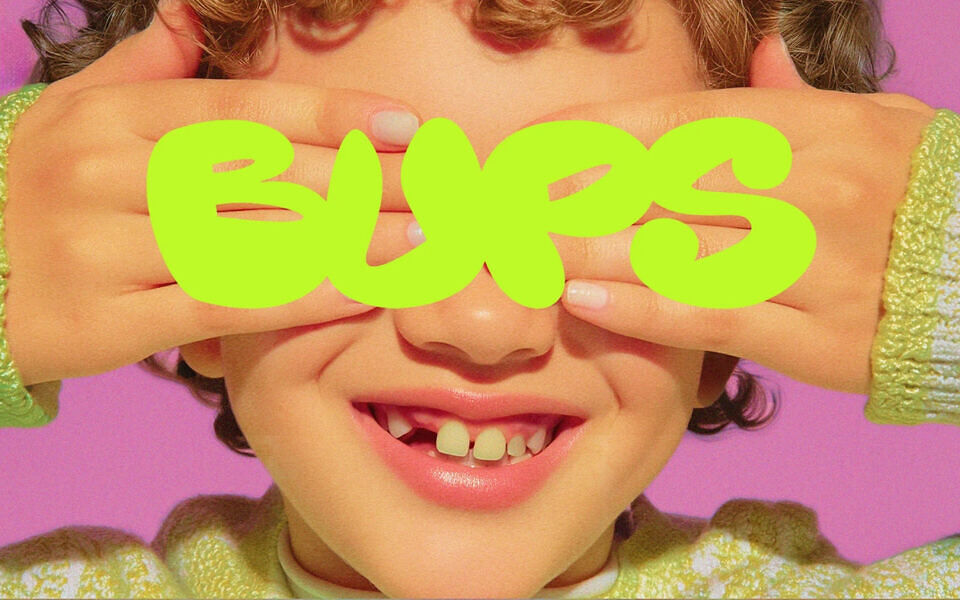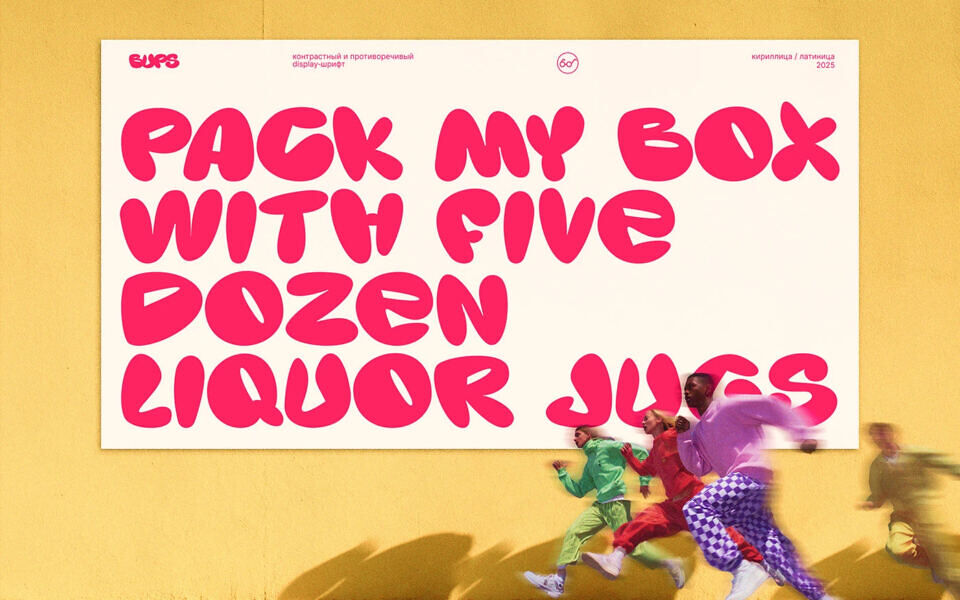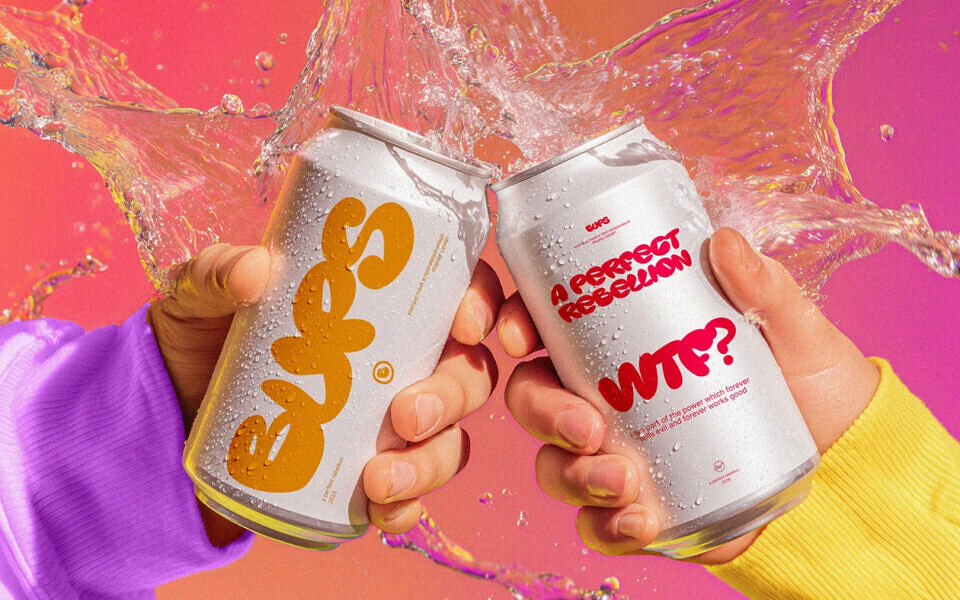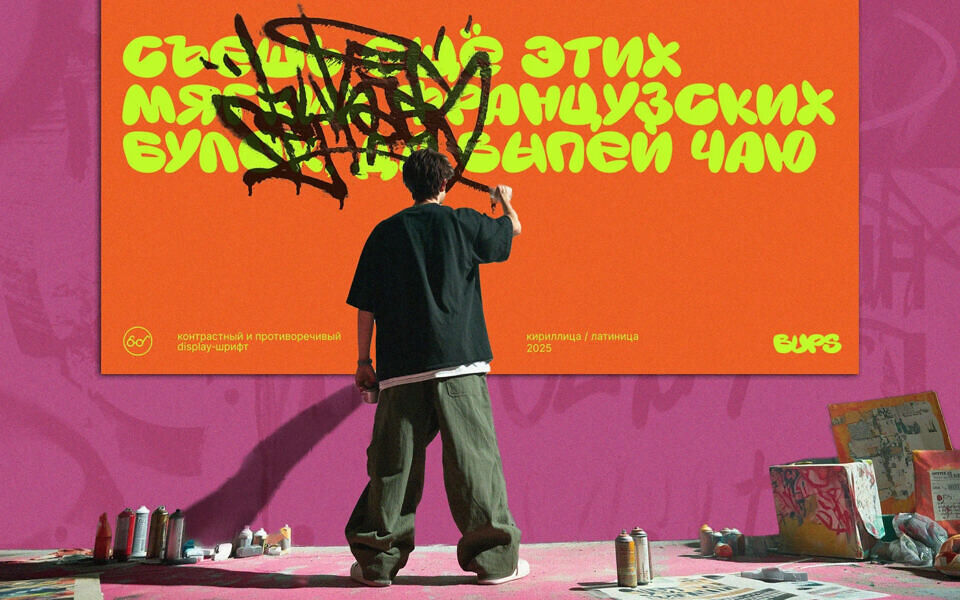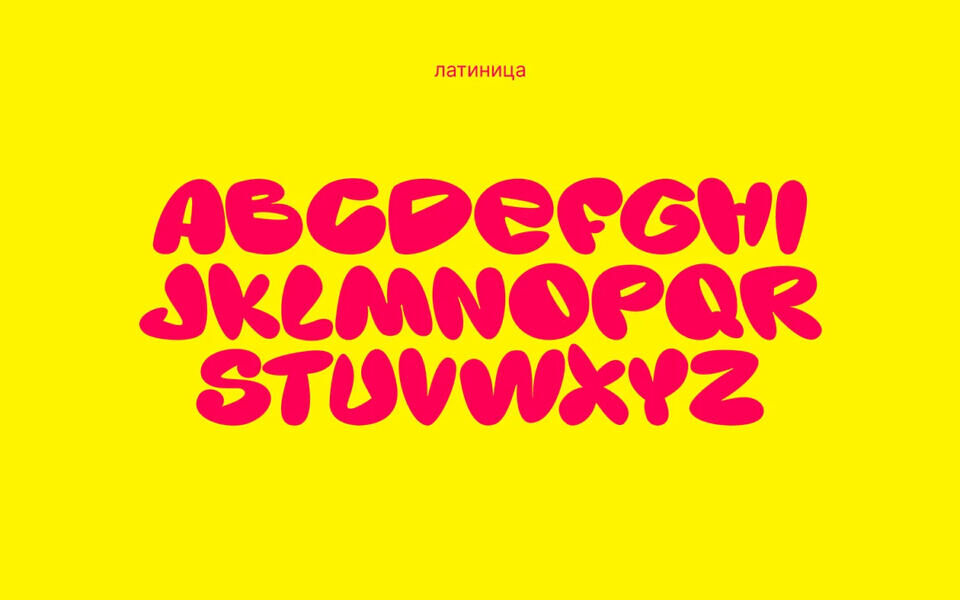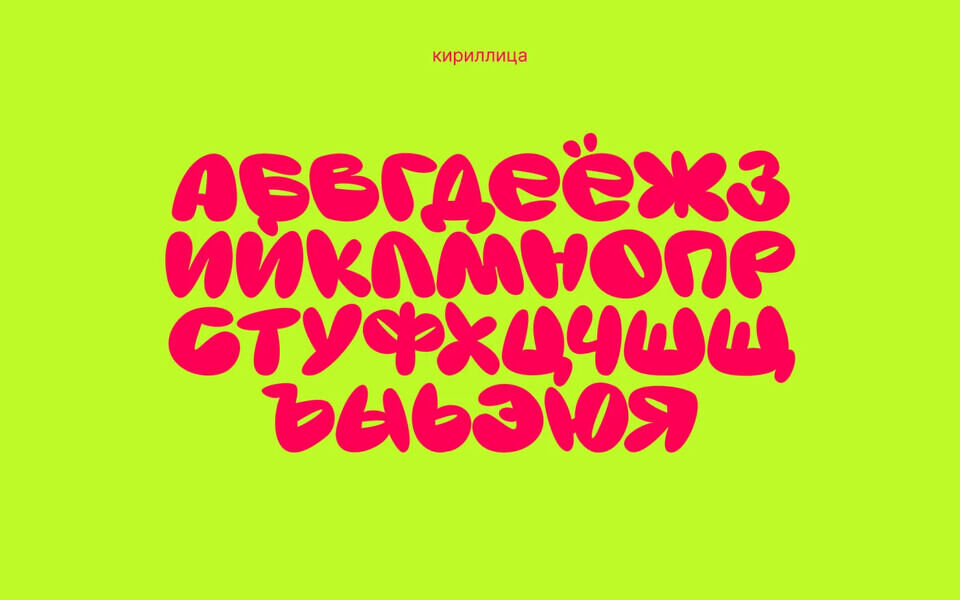
Bups Font
BUPS is a high-contrast display font designed for maximum impact. This free typeface features ultra-thick, pillowy forms paired with sharp, eccentric terminals, creating a playful yet rebellious aesthetic.
Supporting both Latin and Cyrillic alphabets, BUPS is perfect for streetwear branding, bold packaging, and Gen-Z-focused digital content. Its experimental, bubble-inspired curves and irregular weights make it a standout choice for high-energy graphic design projects that demand a loud, unconventional personality.
Designed by: Anastasia Meloch